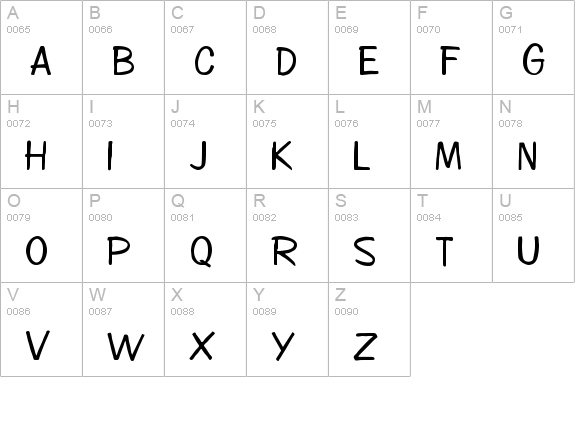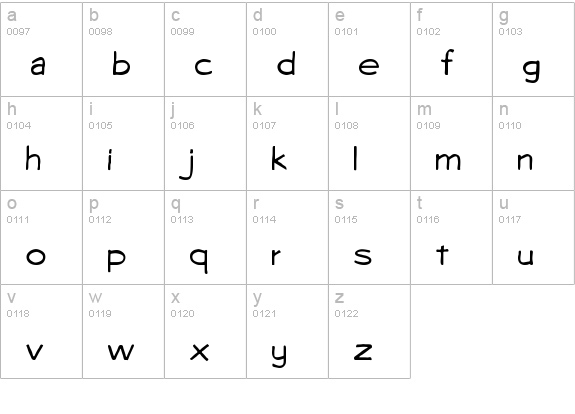
Copybook Normal is the standard, neutral variant in the Copybook typeface family \xE2\x80\x94 well suited to general body text, paragraphs, and standard typographic work.
Copybook Normal font is a classic and versatile typeface that exudes elegance and professionalism. Its timeless design makes it suitable for a wide range of projects, from formal documents to creative designs. The clean lines and balanced proportions of Copybook Normal font ensure readability and visual appeal in any context. What sets Copybook Normal font apart is that it is available for free download at FontsMarket.com. This means that you can easily access this high-quality font without any cost, making it a valuable addition to your font library. Whether you need a sophisticated typeface for your next project or simply want to explore new design possibilities, Copybook Normal font is a fantastic choice that won't break the bank. Download it today and elevate your designs with this elegant and timeless font.